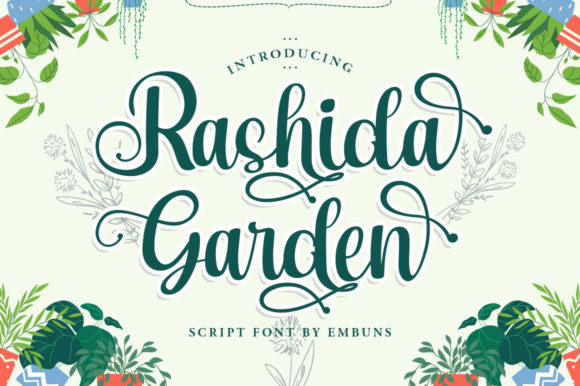
Behold the enchanting Rashida Garden font, a beautiful and flowing handwritten script that captivates with its effortless elegance. Immerse yourself in a world of creativity with this stunning font, designed to bring a touch of timeless sophistication to your digital creations.
Unleash your imagination and let Rashida Garden's graceful characters dance across your designs, adding a hint of whimsy and a sprinkle of magic. Picture your wedding invitations adorned with this exquisite font, the names of bride and groom intertwined in a delicate embrace, promising a day filled with love and joy. Create heartfelt thank you cards that express gratitude with every stroke, leaving a lasting impression on the recipients.
Rashida Garden's versatility extends beyond weddings and celebrations. It adds a touch of charm to greeting cards, infusing them with a personal touch that speaks to the recipient's heart. Craft stunning logos that embody the essence of your brand, exuding a sense of elegance and sophistication. Whether you're a seasoned designer or just starting your creative journey, this font is the perfect companion, ready to elevate your designs to new heights.
With its intuitive PUA encoding, Rashida Garden grants you effortless access to all of its glyphs and swashes. Explore a world of creative possibilities, seamlessly incorporating intricate flourishes and delicate embellishments into your designs. The sky's the limit when you have Rashida Garden at your fingertips.